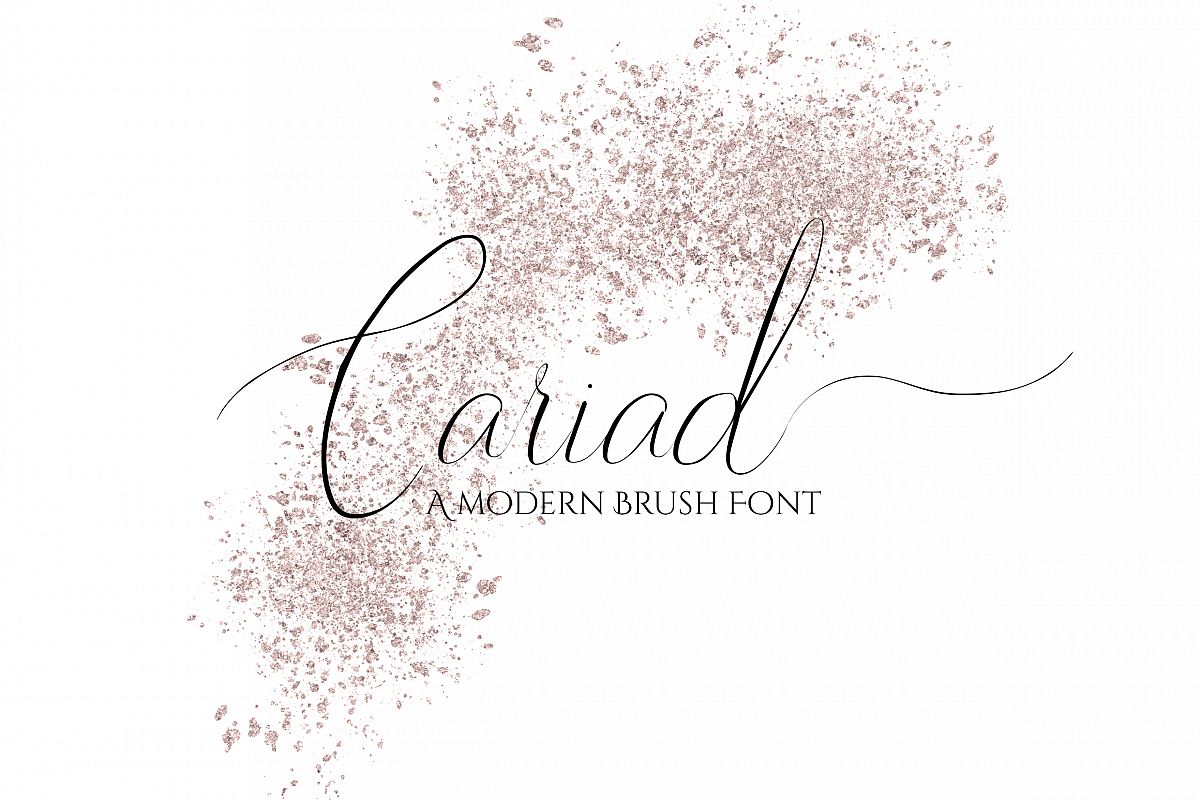
Cariad - A modern Script Font
A modern signature style brush font.  Perfect for logos, invitations, wedding invites, cards and product packaging wherever you need and elegant and chic font. Open type features include
• Contextual alternatives
• Stylistic alternatives
European Languages covered: Albanian, Croation, Dutch, Danish, Estonian, Finnish, French, German, Hungarian, Icelandic, Italian, Latvian, Lithuanian, Norwegan, Polish, Portugeuse, Romanian, Sami, Spanish, Swedish, Turkish, Faroese, Irish Galic, Scottish Galic, Manx Galic, Slovenian.